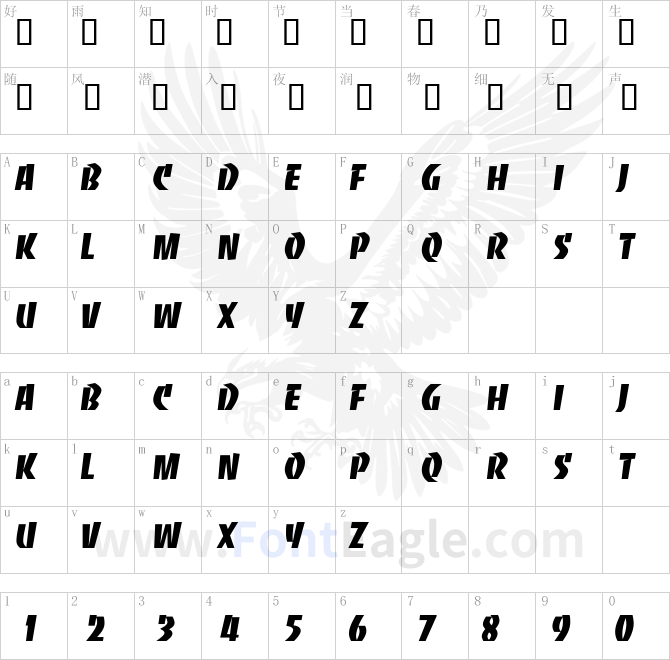
- Font name:BanjoDB
BanjoDB-Normal is a great font, widely used in graphic design, single-page menu design, poster design and other fields, and is deeply loved by designers.BanjoDB-Normal download.